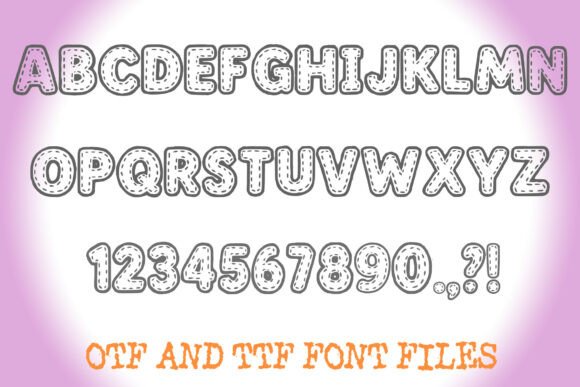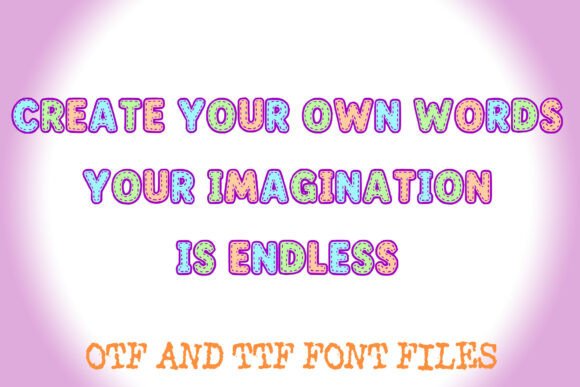
Stitch Patch Font
Stitch Patch Alphabet Lettering ABC Embroidery Text Font OTF
A sewing style font where you can create your own words and colour them to your vision!